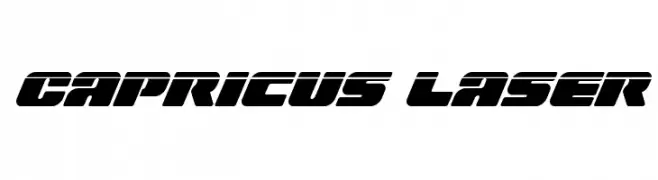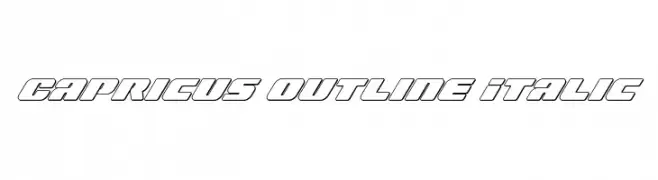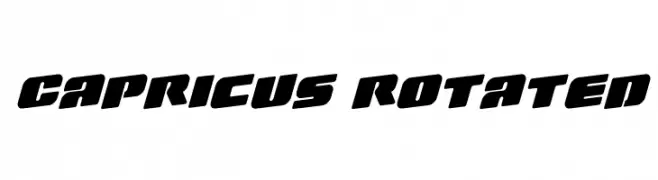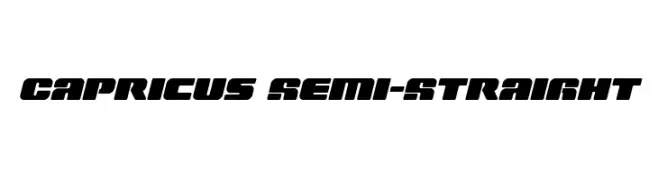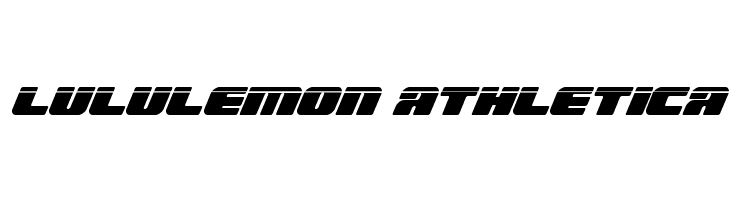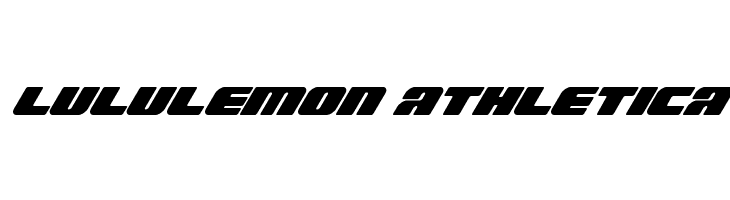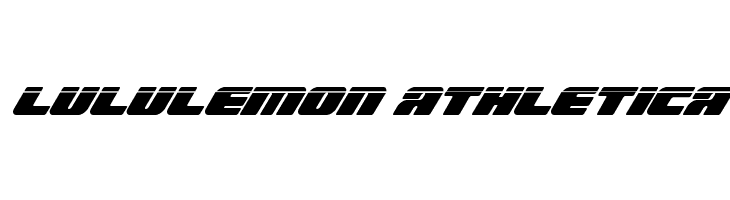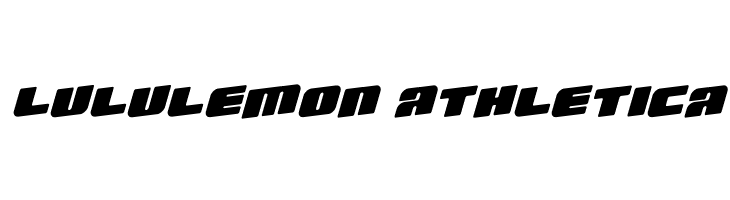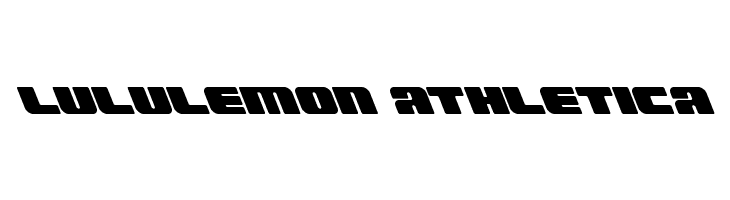
A bold, dynamic font with a halftone effect and striped pattern, ideal for modern designs.
A bold, italicized font with a futuristic and dynamic style.
A bold, futuristic font with sharp angles and a dynamic slant.
A bold, italic, futuristic font with angular edges and a dynamic style.
A bold, futuristic font with geometric angles and a dynamic slant.
A bold, futuristic outline font with geometric shapes and clean lines.
A bold, italicized outline font with a modern and dynamic style.
A bold, geometric outline font with semi-straight edges and a modern aesthetic.
A bold, slanted font with angular cuts and a futuristic style.
A bold, futuristic font with geometric and semi-straight characters.